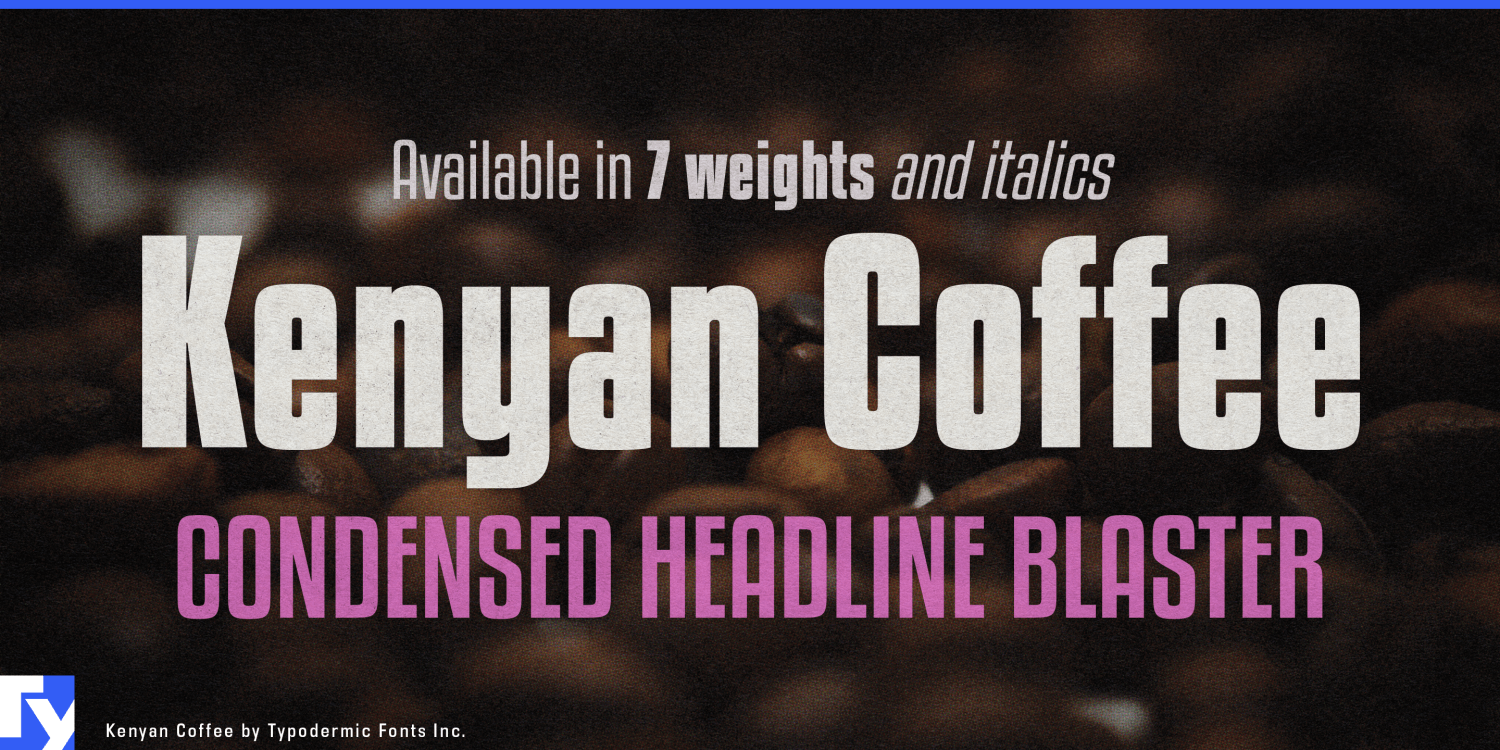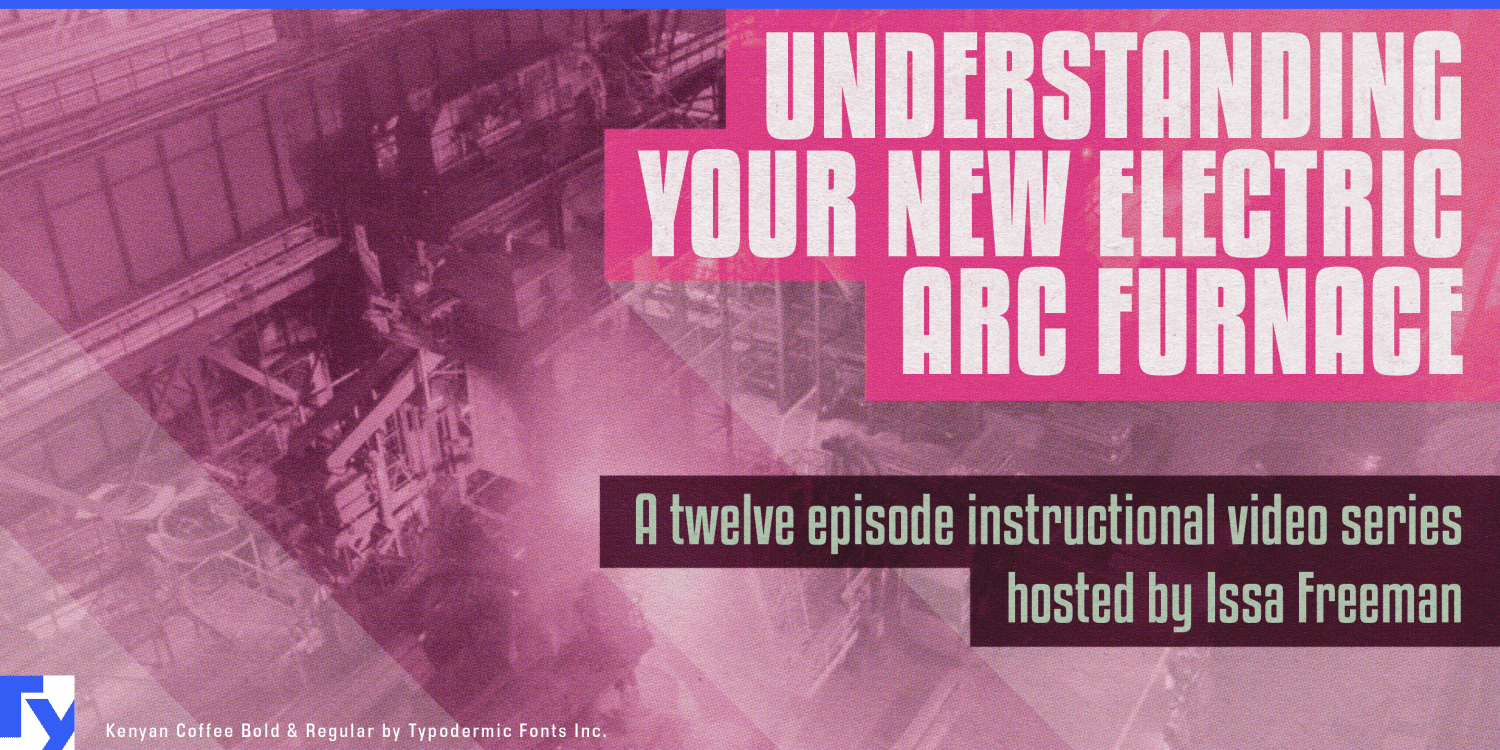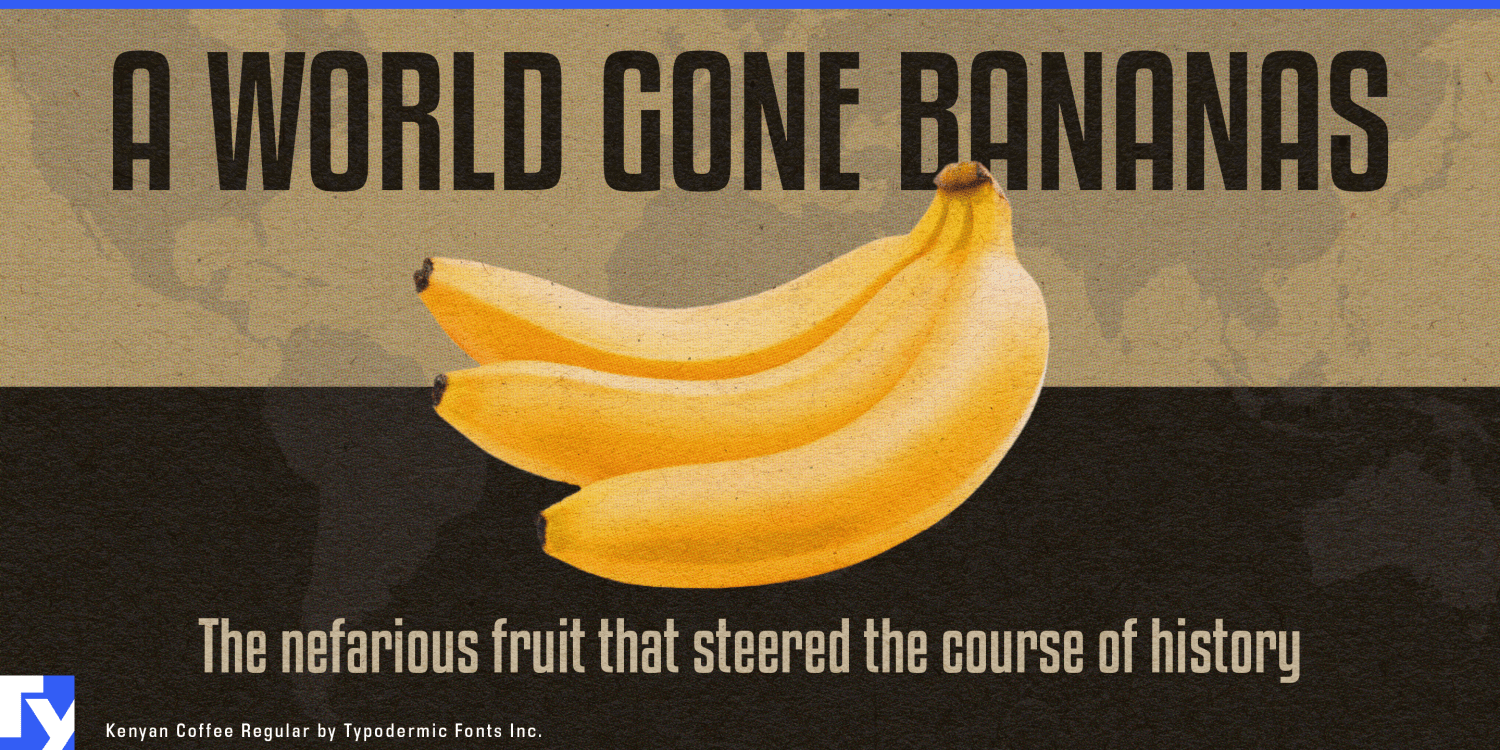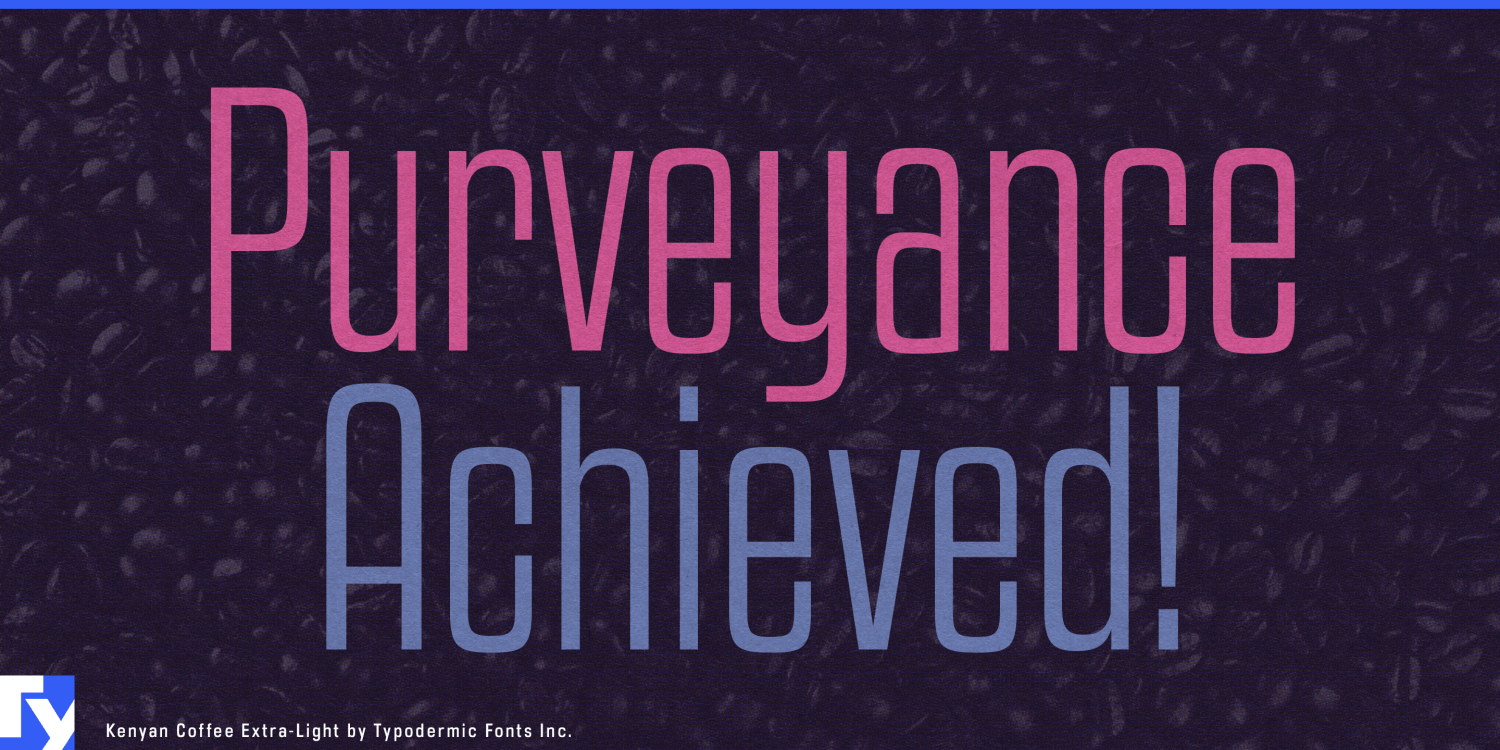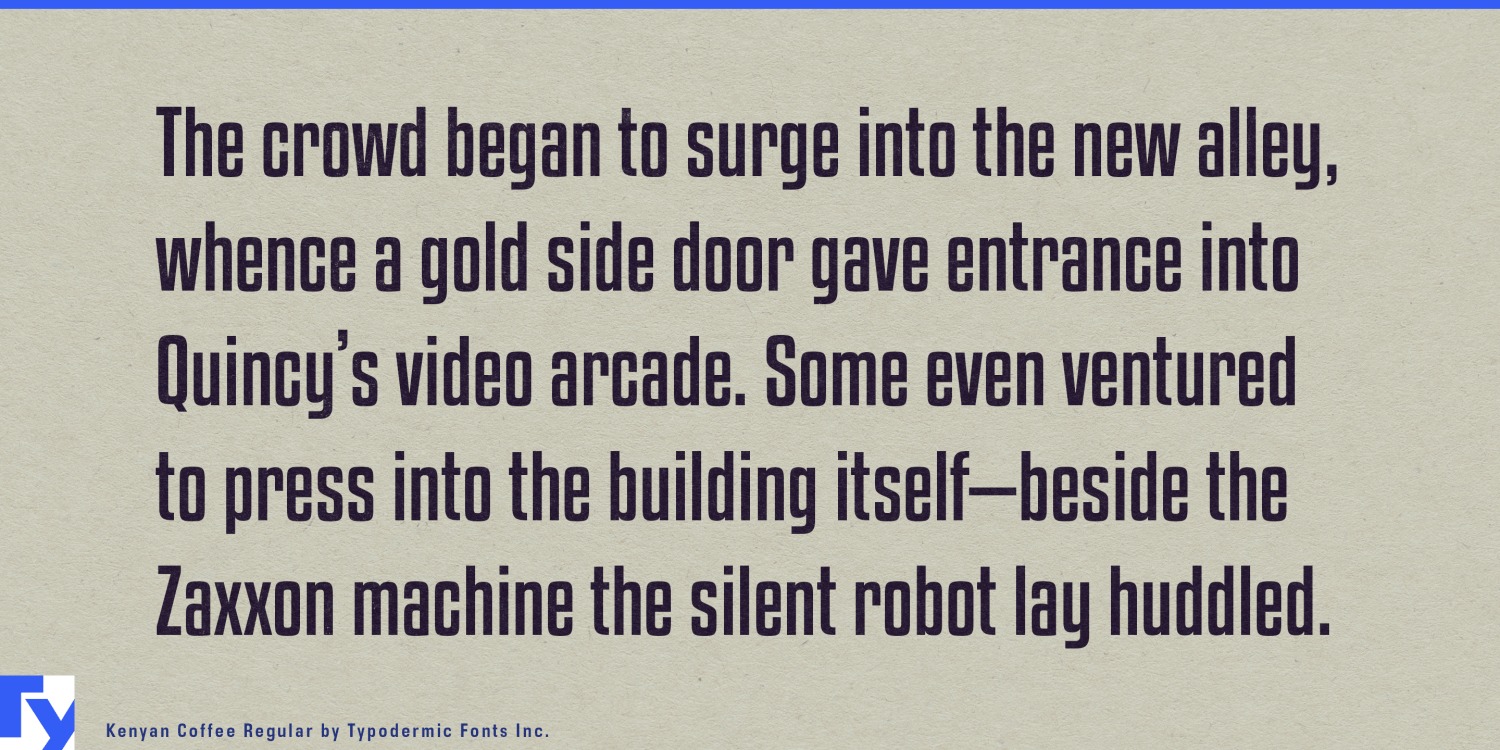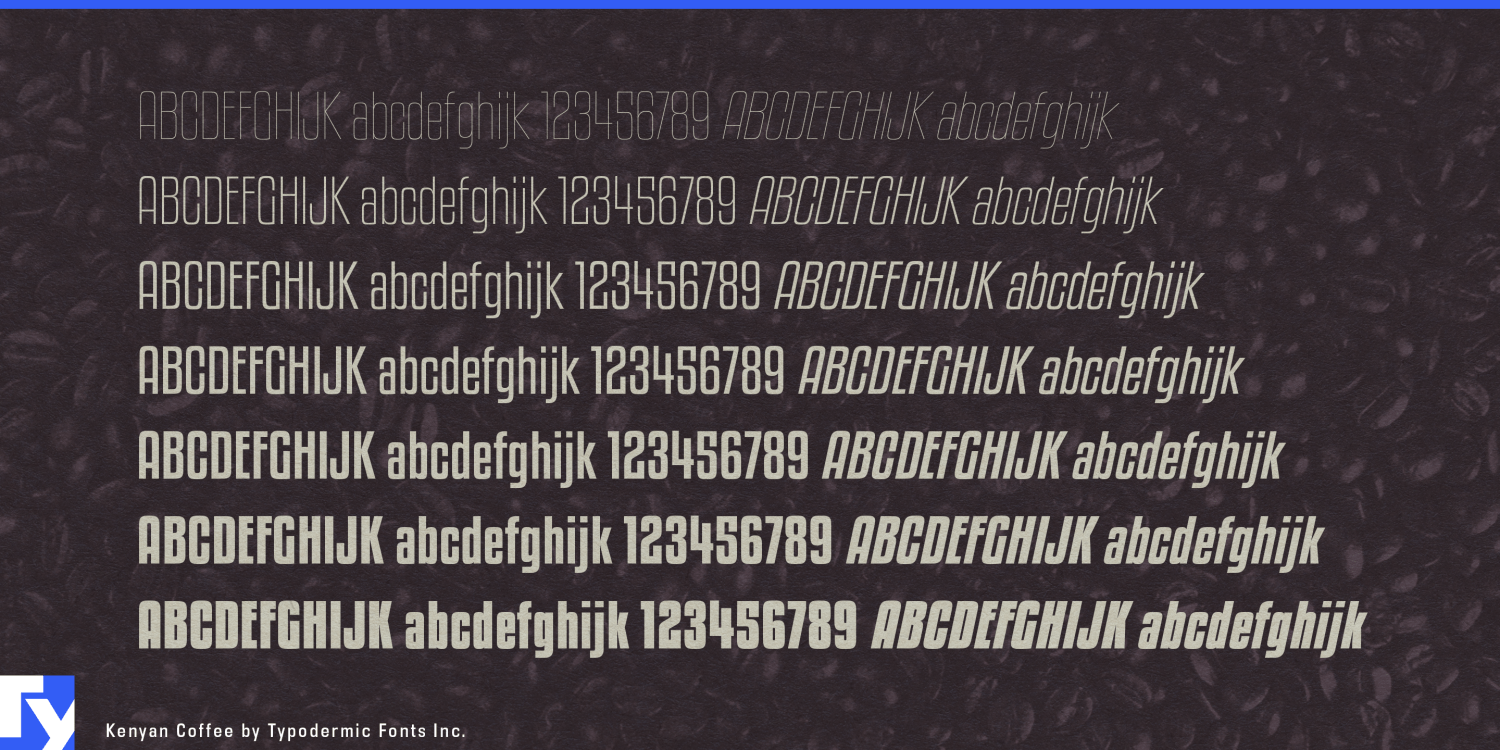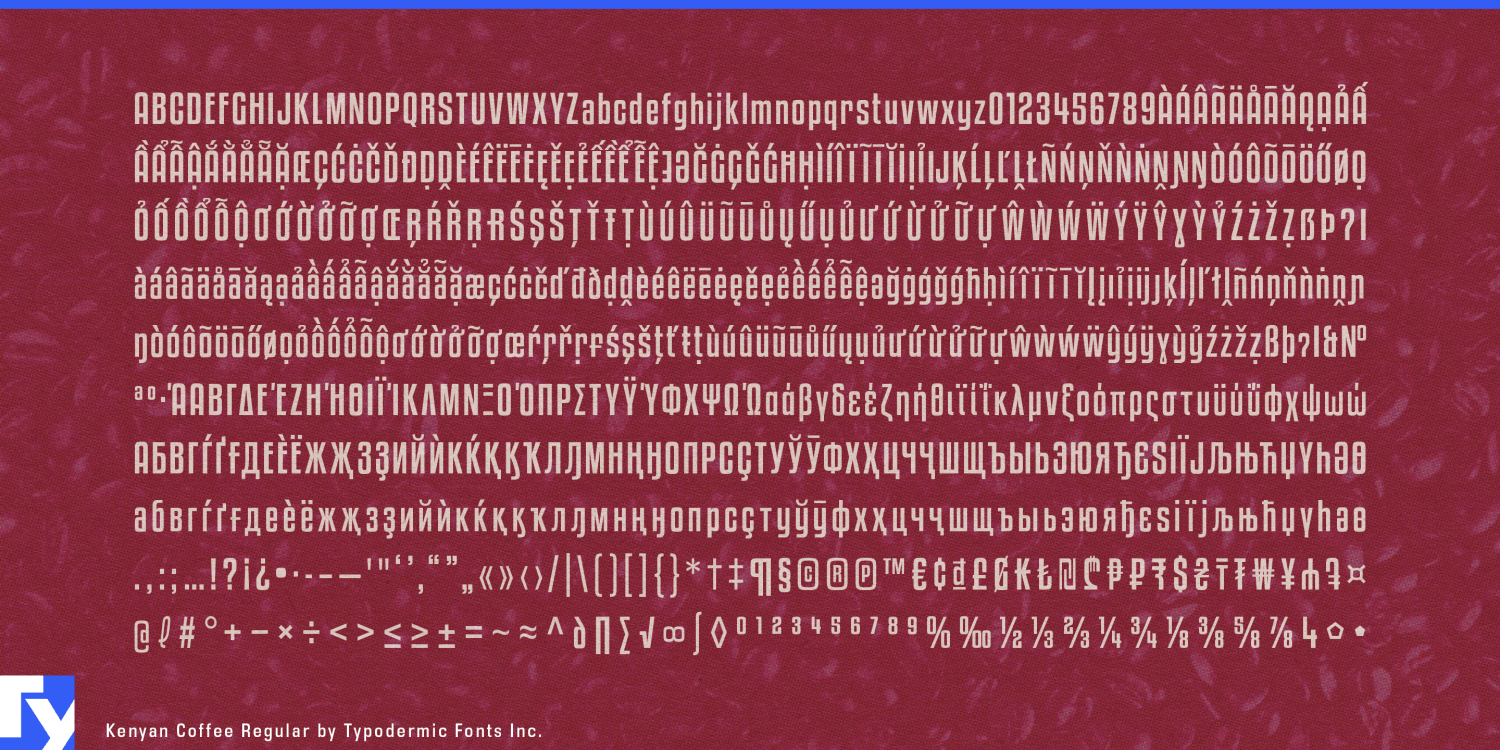
Kenyan Coffee
A flat-sided compact sans is one of the most dependable ways to fit a lot of headline into a narrow space. It is also an easy way to make the result look familiar. Kenyan Coffee keeps the tall, economical proportions but disrupts the expected rhythm with unusually placed crossbars and shifting waistlines. Words stay compact while individual letters introduce enough irregularity to keep the typography from looking like a default condensed headline face.
Seven weights with matching italics let the same narrow structure move from lighter supporting display text to substantial headlines, product names, and campaign graphics. Its mixed case can also carry several lines when the job requires more than one oversized word.
Functional beverages are an especially natural setting. Electrolyte drinks, sparkling hydration, energy and focus beverages, mineral drinks, and recovery formulas increasingly use tall cans and narrow bottles where product names, flavors, claims, and supporting information compete for limited space. Kenyan Coffee can keep the master name or flavor large while a quieter companion family handles ingredients and technical details.
Performance nutrition creates similar pressure on smaller packages. Hydration sticks, electrolyte sachets, energy gels, recovery powders, pre-workout tubes, and single-serving supplements often have long product or flavor names squeezed into narrow panels. Kenyan Coffee keeps those names prominent rather than forcing them into tiny type or awkward stacks.
Sports media provides another reason to be narrow. Boxing and MMA fight cards, football and basketball matchday graphics, player introductions, rankings, tournament brackets, results, and athlete social-media templates constantly have to accommodate unpredictable surnames, opponents, statistics, dates, and sponsors inside fixed modules. Kenyan Coffee absorbs long names while its uneven waistlines keep those systems from looking generic.
Performance footwear and athletic equipment can extend that visual language into shoe model names, colorways, training collections, race-expo displays, box sides, hangtags, and retail graphics. Personal-care packaging offers a less obvious fit: sunscreen tubes, styling products, scalp treatments, body care, refill pouches, and portable skincare formats all benefit from typography that can fill tall, narrow surfaces efficiently.
Kenyan Coffee does the practical work of a compact sans, but its shifting waistlines and unconventional letter structure make the compression look deliberate rather than merely necessary.